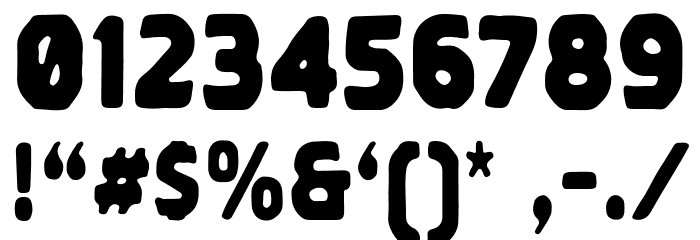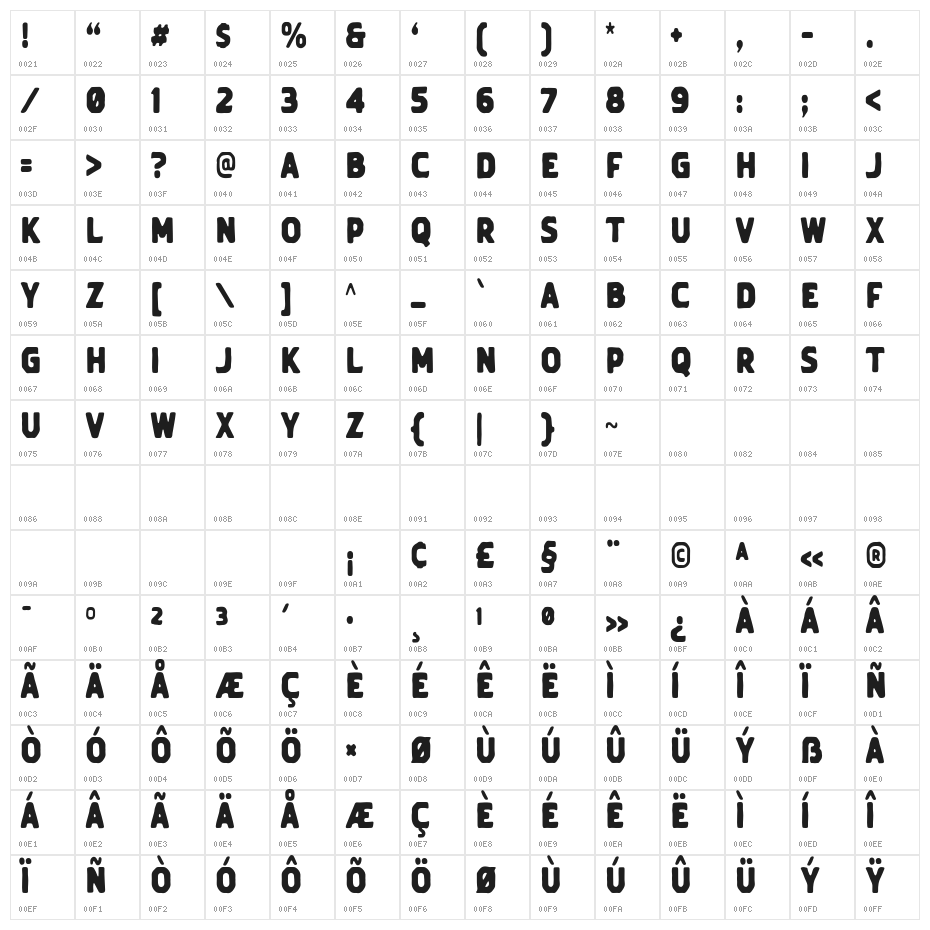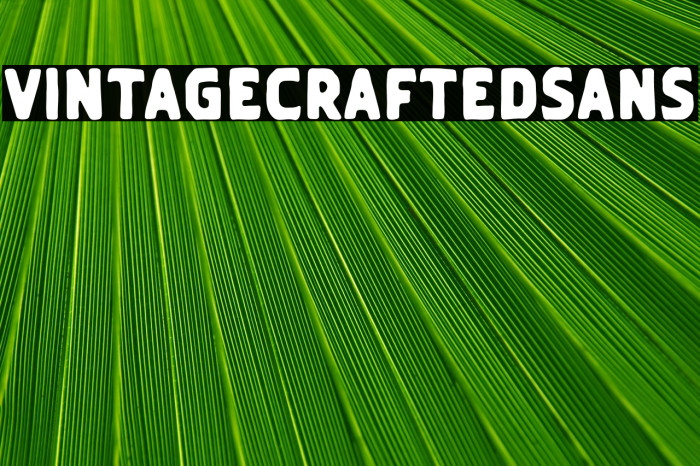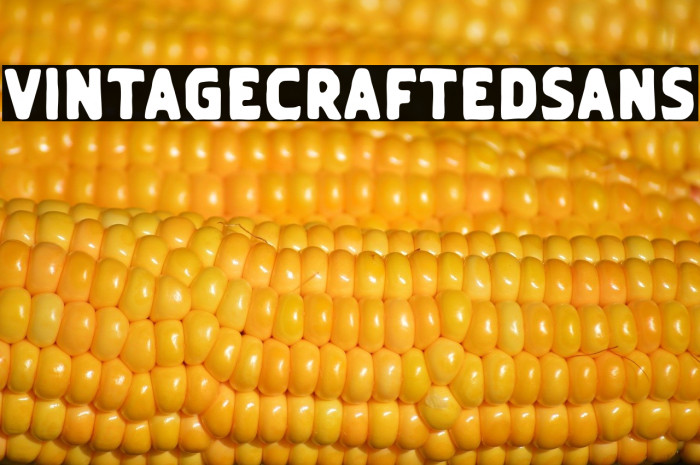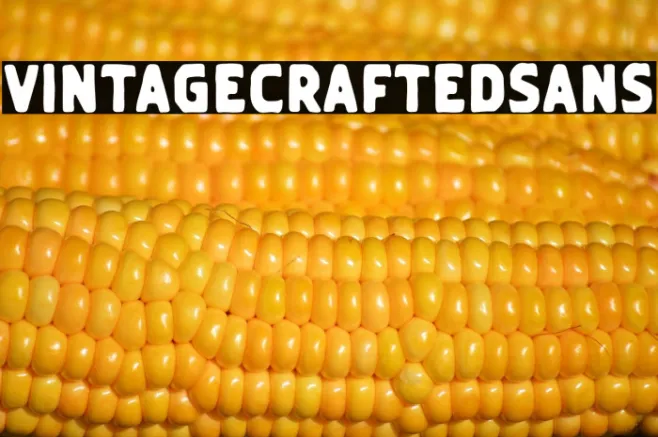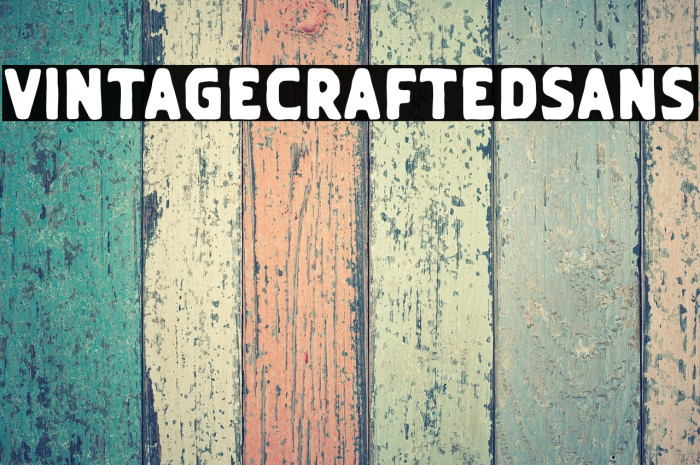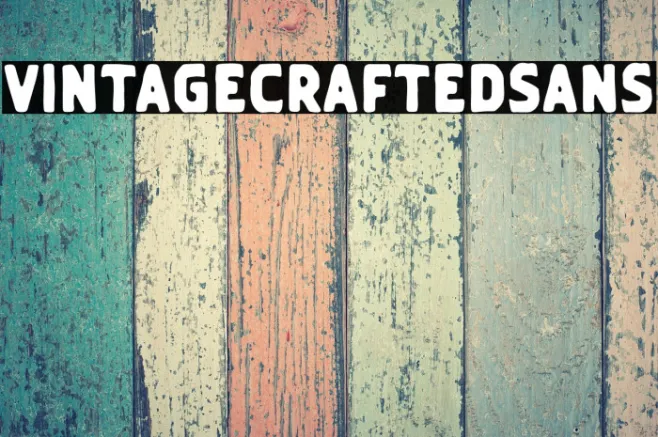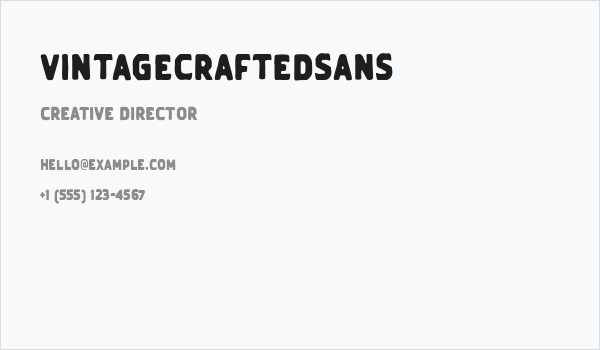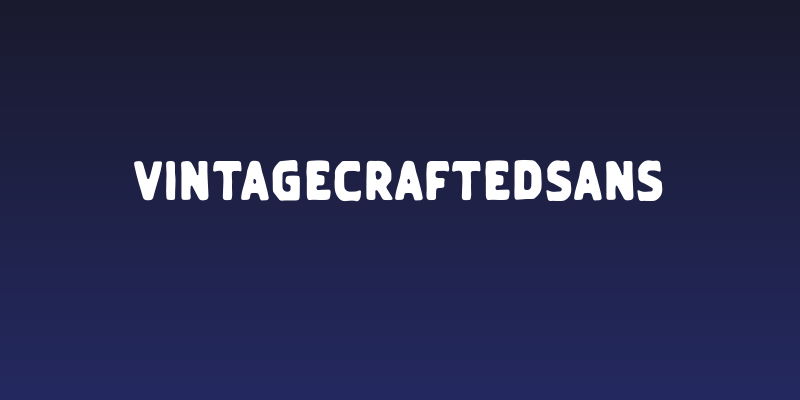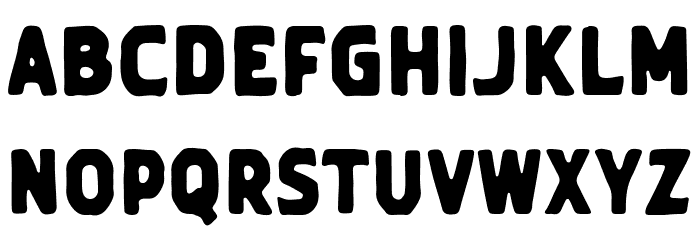
VintageCraftedSans Font
VintageCraftedSans Description
This font features a bold, handcrafted appearance with a vintage flair. The characters are thick and rounded, giving off a playful yet sturdy vibe. The uppercase letters are consistent in height, while the numbers and special characters maintain the same boldness, ensuring uniformity across all glyphs. The font's design is reminiscent of retro signage, making it ideal for projects that require a touch of nostalgia. Its bold strokes and rounded edges make it highly legible, even from a distance.
| Proposed Projects | Ideal for retro-themed posters, vintage branding, playful packaging designs, and eye-catching headlines. |